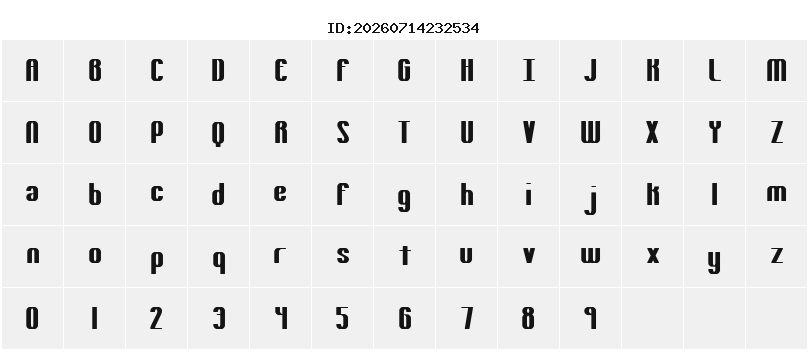
Yielding (BRK) Preview
• Font Name: Yielding (BRK)
• Full Font Name: Yielding -BRK-
About Yielding (BRK).ttf
Yielding (BRK).ttf is a modern, elegant sans-serif font designed for ultimate readability and visual harmony. Perfect for branding, headlines, web design, and print materials.